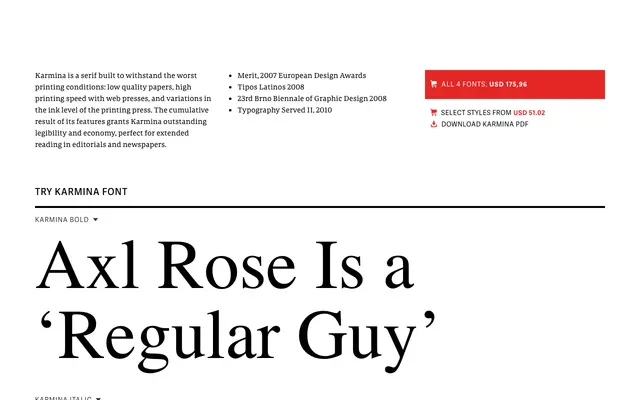
Karmina
TypeTogether · José Scaglione & Veronika Burian · 2007
A calligraphically influenced newspaper serif with generous inktraps and compressed proportions built to perform on challenging print substrates.
Karmina was engineered from the outset for low-quality papers, high-speed presses and inconsistent ink coverage. Inktraps at acute connections, a large x-height and compressed letterforms combine to maximise readability per column inch. Four styles pair with the Karmina Sans companion. Won Merit at the 2007 European Design Awards.
Sturdy newspaper serif with inktraps, large x-height, and compressed proportions; engineered for low-quality paper and high-speed printing